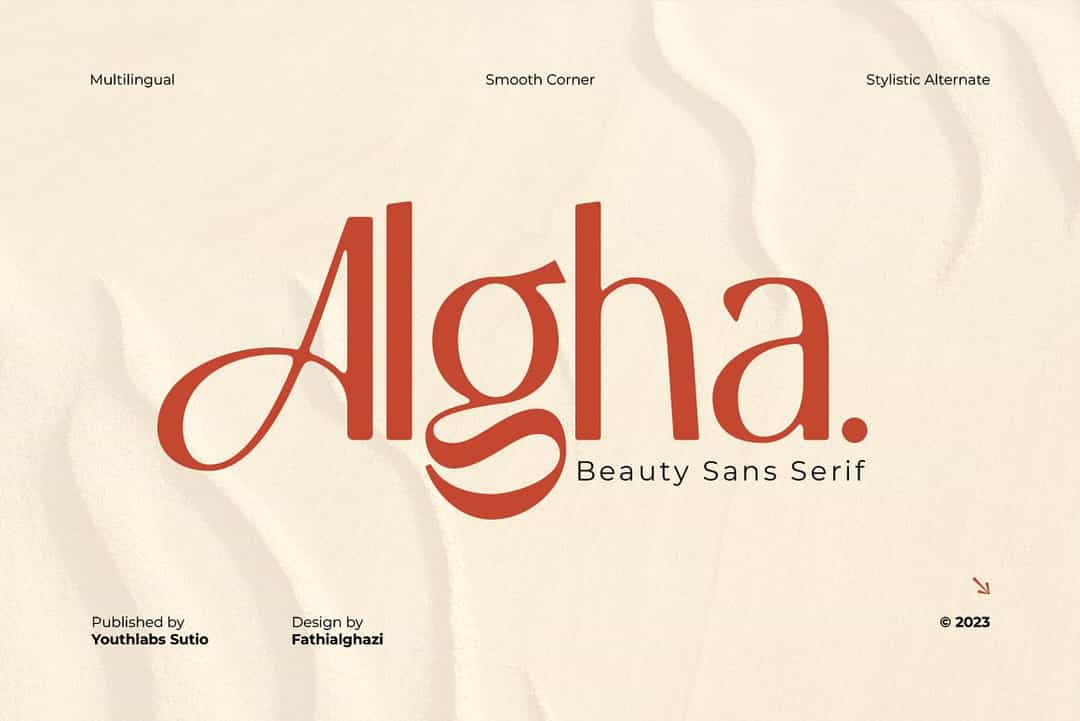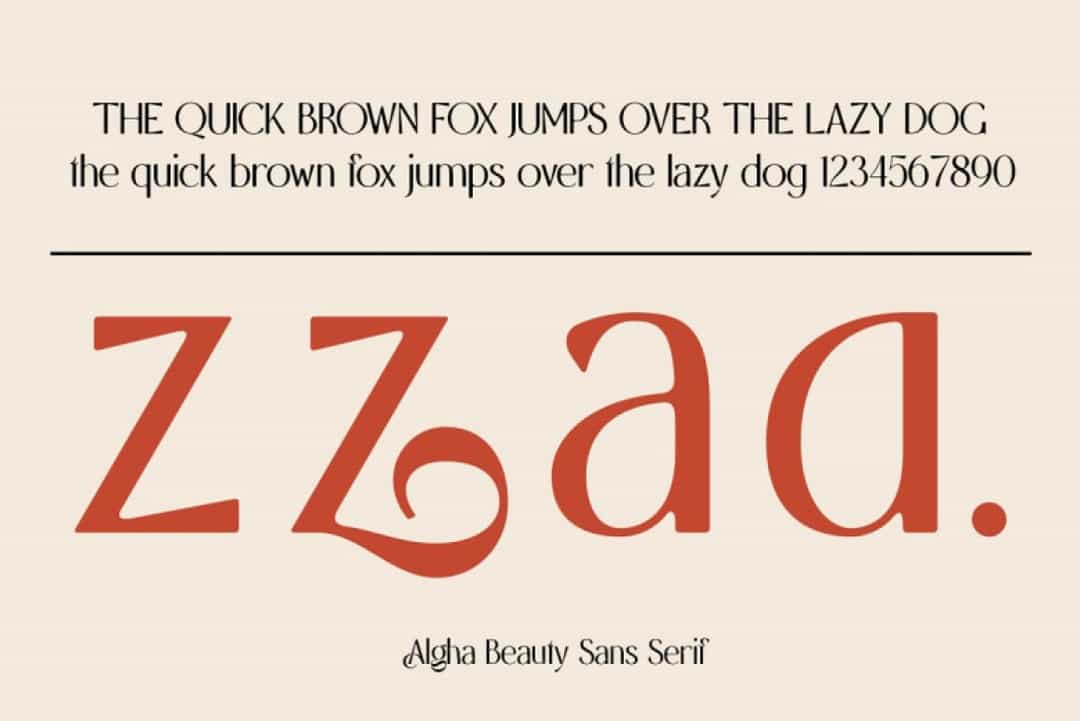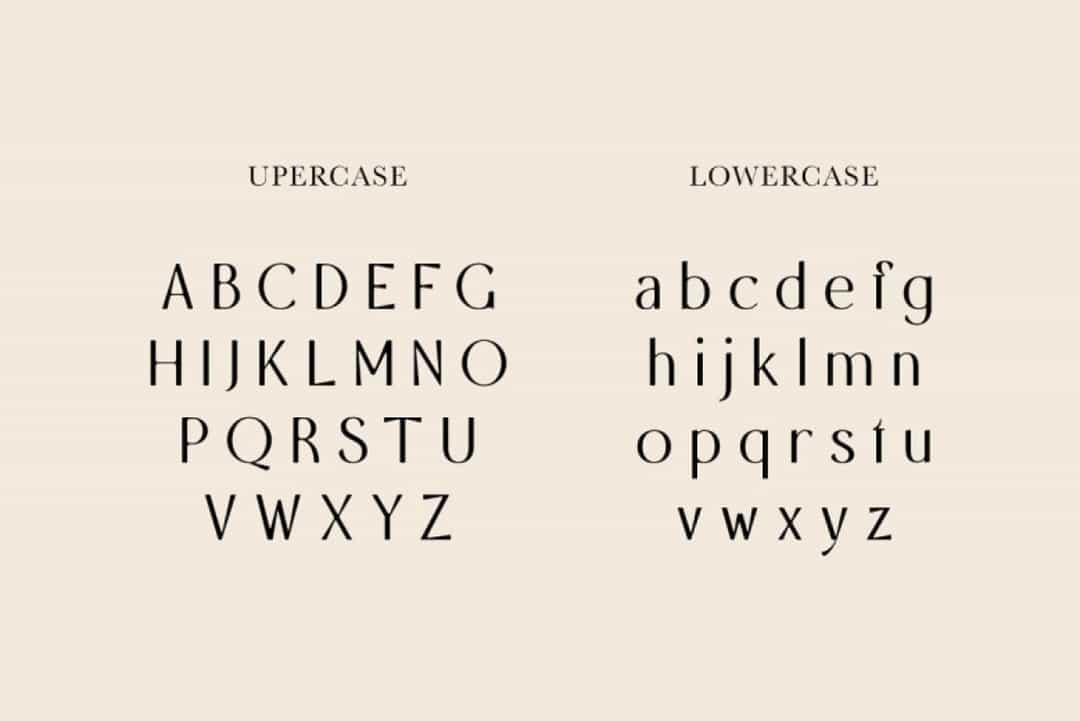
Algha Beauty Sans Serif Font is now available! Bringing together cottagecore with elegance, Algha puts great emphasis on beauty and grace. With an obtuse incline that doesn’t limit beauty to one perspective, Algha makes an excellent addition for requirements requiring beauty; worn alone or decorated with accessories it makes an eye-catching statement piece.